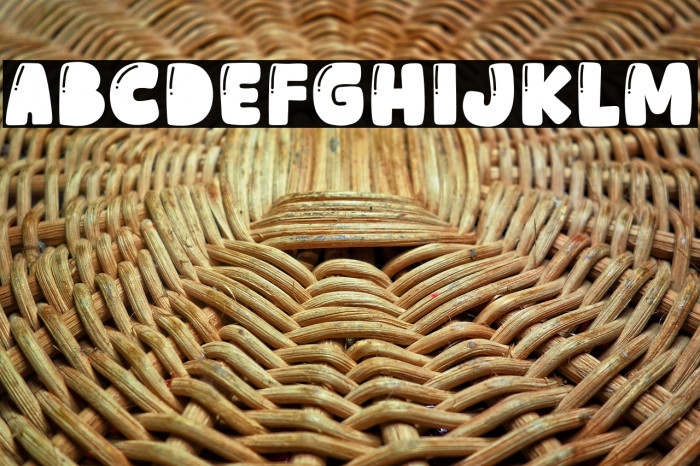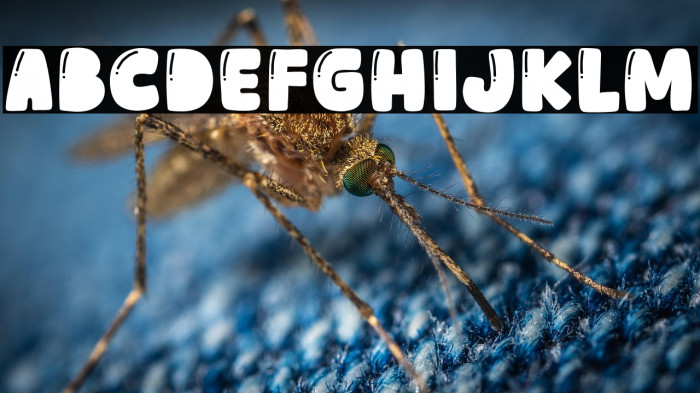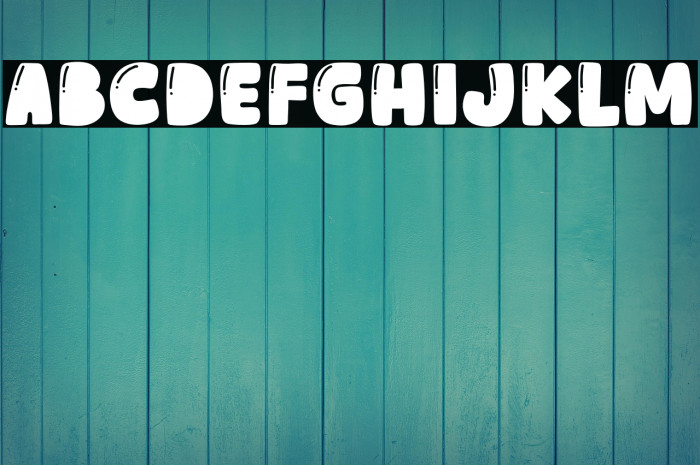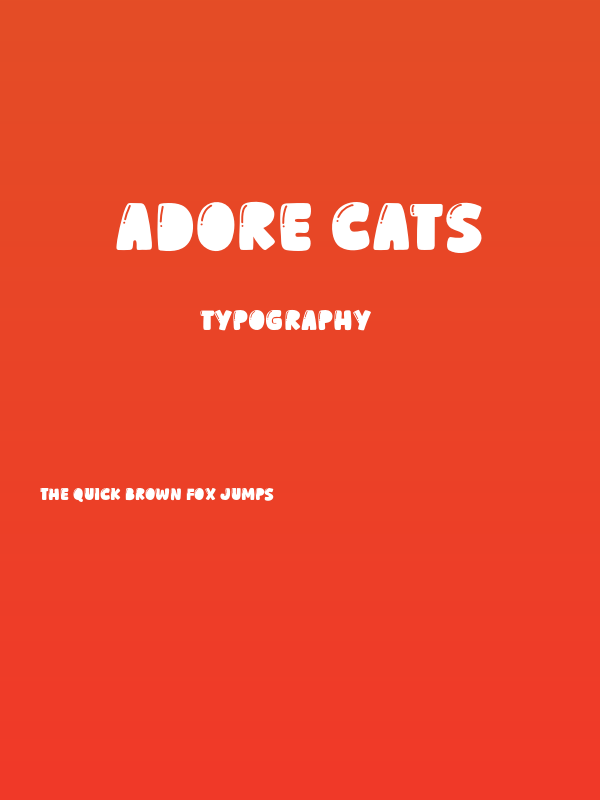
Adore Cats Font
Adore Cats Description
This playful and bold font features rounded, chunky letters with a whimsical touch. Each character is designed with a smooth, glossy appearance, giving it a fun and friendly vibe. The letters are uniformly thick, with a slight variation in stroke width that adds a dynamic feel. The font's style is reminiscent of cartoon or comic lettering, making it ideal for projects that require a lighthearted and approachable aesthetic. The characters are well-spaced, ensuring readability while maintaining a cohesive look. This font's unique design is perfect for capturing attention and conveying a sense of joy and creativity.
| Proposed Projects | Ideal for children's books, playful branding, comic strips, and fun event invitations. |